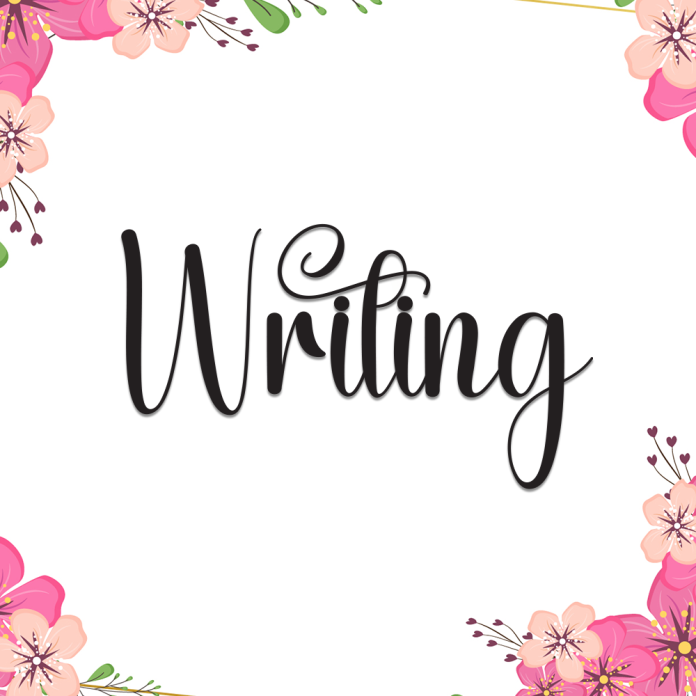
Writing is a graceful and smooth handwritten font that mimics natural penmanship with a refined touch. Its fluid strokes and gentle curves give your text a personal and heartfelt tone, perfect for designs that need authenticity and charm.
Whether you're working on wedding invitations, love letters, journaling projects, social media graphics, or branding for a creative business, Writing adds a warm, personal feel to every word.
Elegant and clean handwritten style
Ideal for personal branding, greeting cards, logos, and quotes
Smooth flow with a balanced structure
Includes uppercase, lowercase, numbers, punctuation
Let your message feel handwritten and heartfelt with Writing – where simplicity meets style.